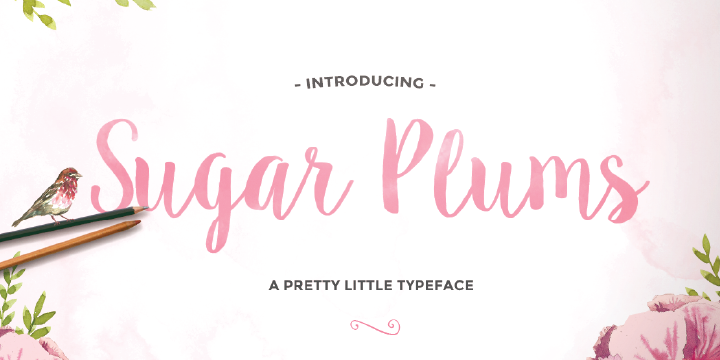
Sugar Plums is a dingbat and modern calligraphy font family. This typeface has three styles and was published by Emily Spadoni.
Including over 120 different hand drawn characters for a range of languages and dialects. As well as an Italic version and over 60 hand drawn ornaments and phrases which are ready to use with one click.